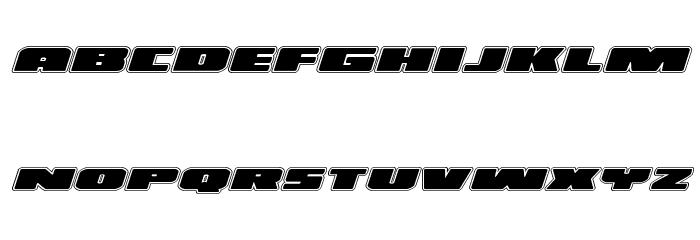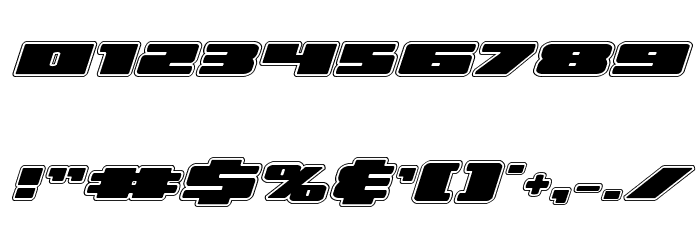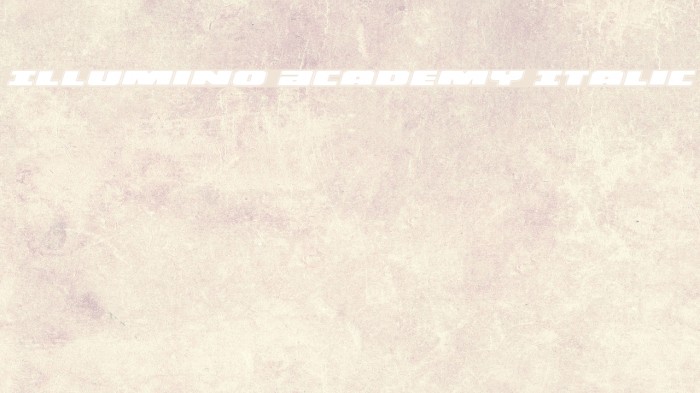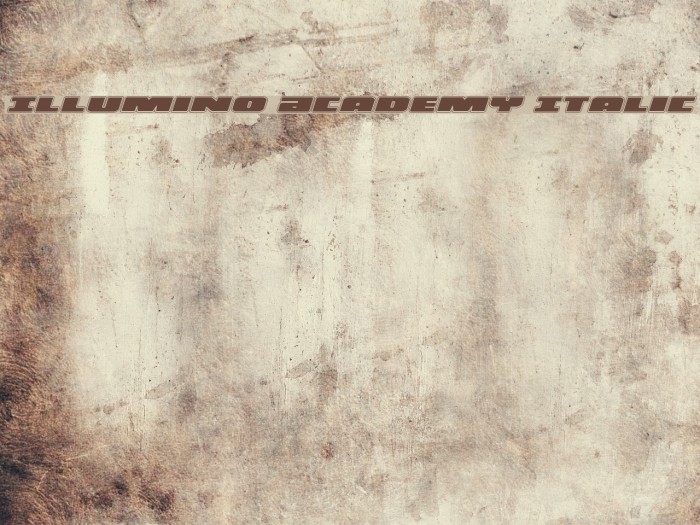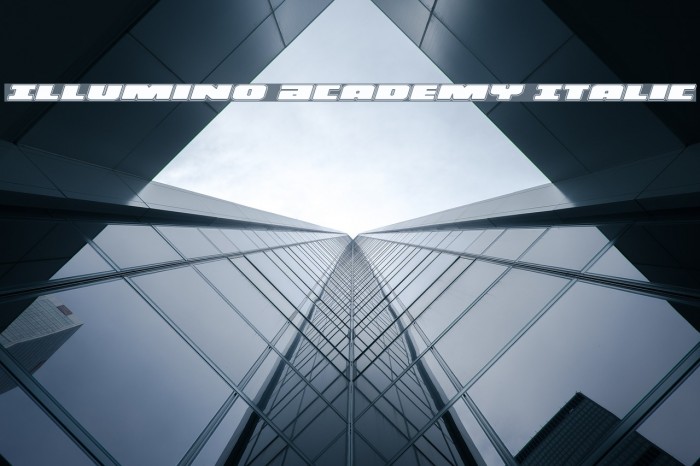
Illumino Academy Italic Font
This font features a bold, futuristic design with a strong emphasis on geometric shapes and a sleek, italicized form. The characters are wide and have a distinct, block-like appearance with rounded edges, giving them a modern and dynamic feel. The uppercase and lowercase letters maintain a consistent style, with the lowercase slightly smaller but equally bold. Numbers and special characters are designed to match the overall aesthetic, ensuring uniformity across all elements. The font's boldness and unique style make it stand out, suitable for projects that require a strong visual impact.
A bold, italicized font with a futuristic, geometric design.
- Proposed Projects: Ideal for sci-fi themed projects, video game titles, technology branding, and modern advertising campaigns.
- Width: Expanded